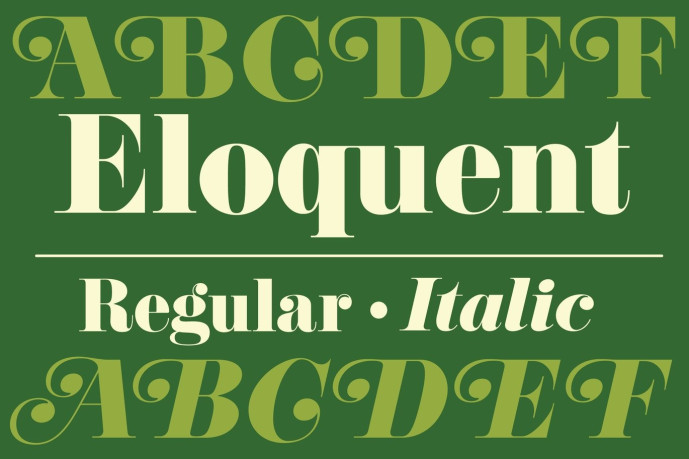
Eloquent Serif Font
Designer: Jason Walcott
Eloquent Font is an award-winning display & serif family digitally revived from a font called Pistilli Roman. The original Pistilli Roman font is a gorgeous “Didone” style typeface designed in the 1960s that never made it into digital form until now. The original typeface had no accompanying italic, so this completely original version was added by the designer to fill in that gap.
Both the regular and Italic fonts contain a full set of swash variants as well as oldstyle numerals and other alternates to round out the functionality. The fonts come in OpenType format and the download contains both .otf and .ttf versions as well as webfont formats. It is compatible on both Mac and Windows.and contains basic OpenType features as well as support for Latin-based and most Eastern European languages.